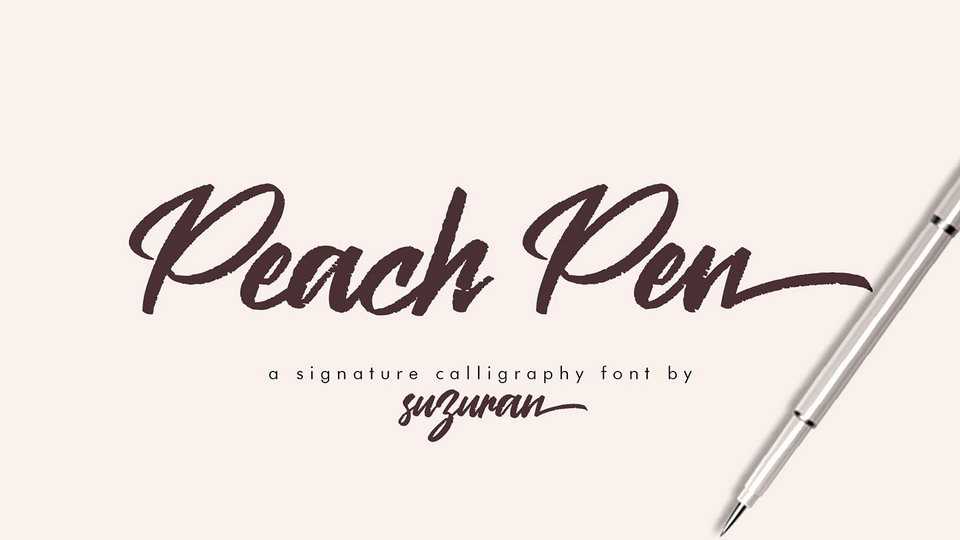
Peach Pen Script Font › Fontesk – Download Grátis
Download Peach Pen font, a textured handmade script with own personality. Great for logo, stationery, poster, apparel, branding, wedding invitation, card, tagline, layout design, and much more.
Designer: Suzuran Type